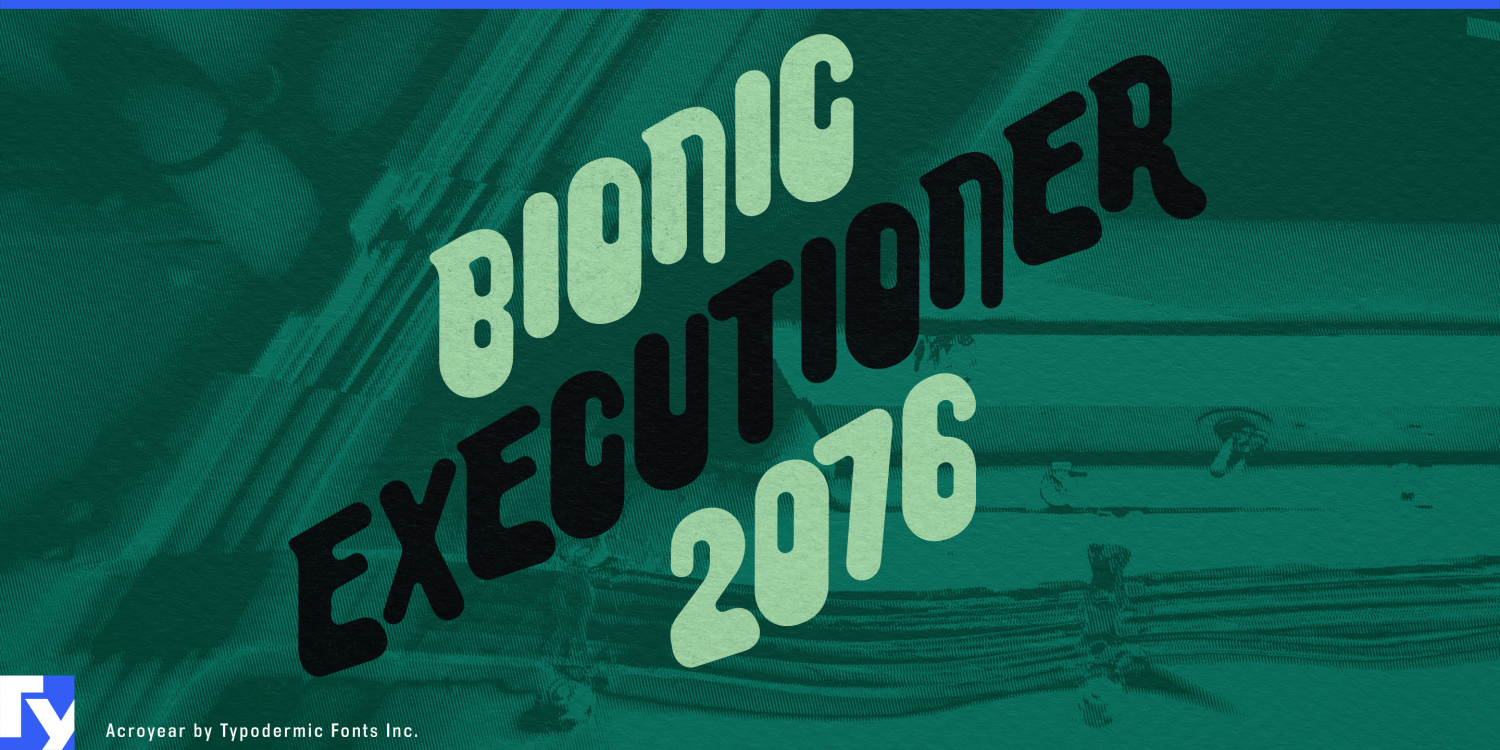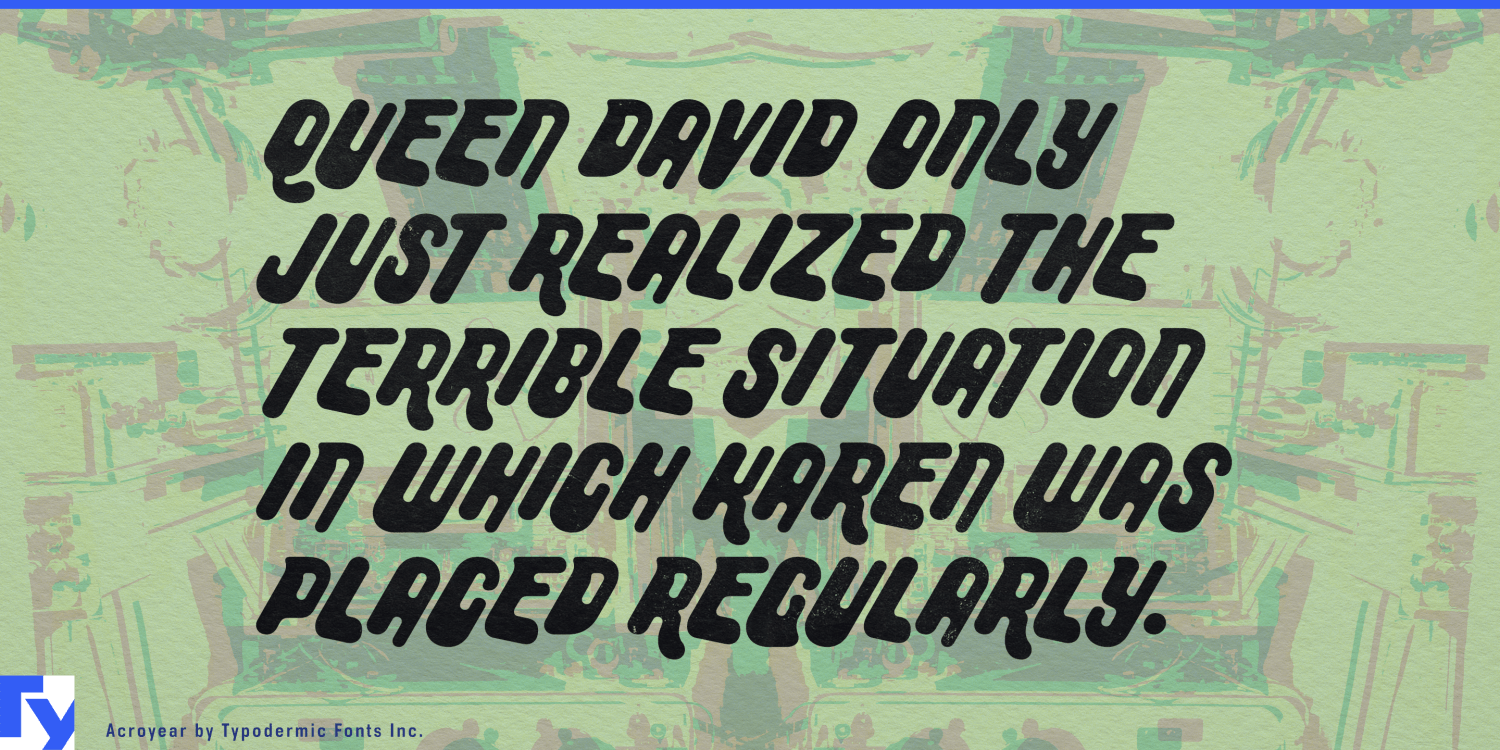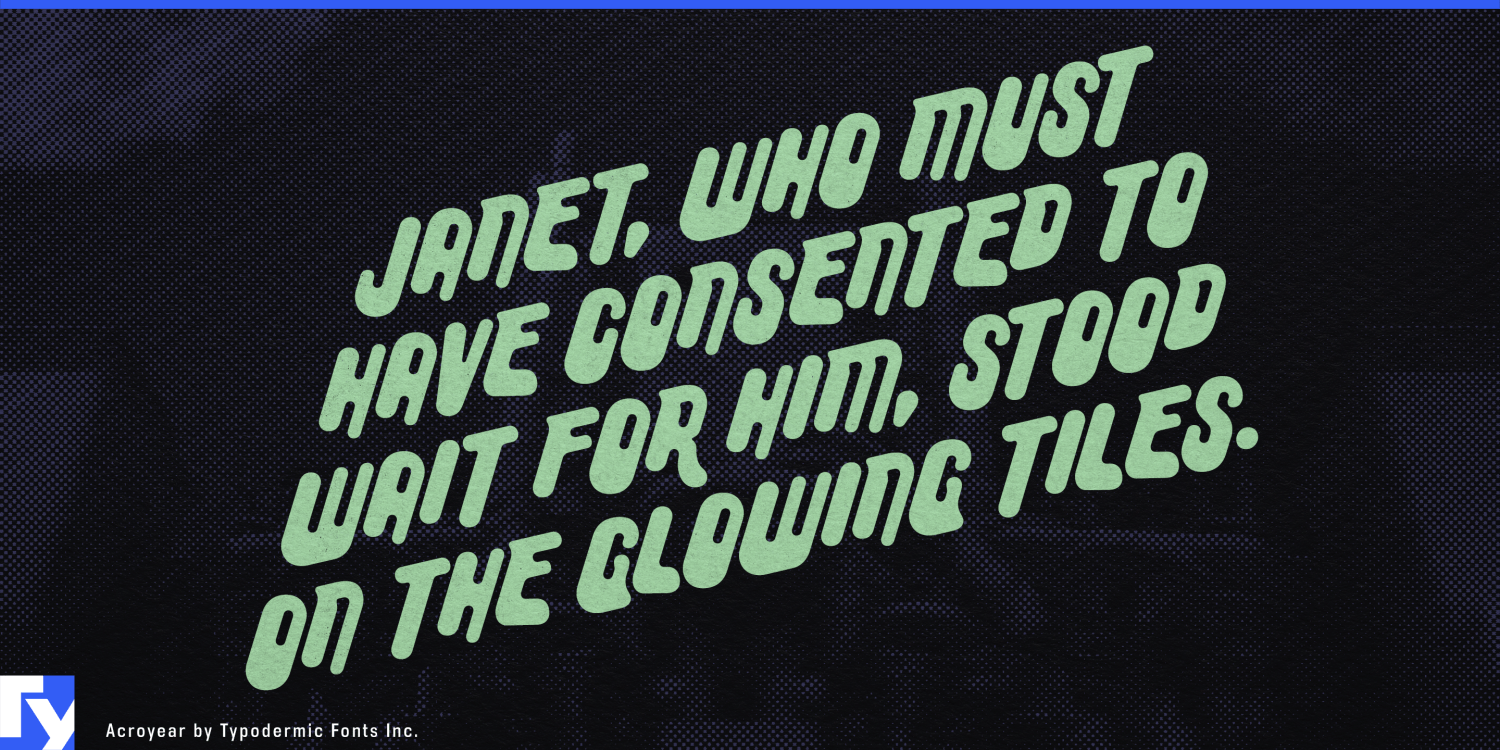
About Acroyear
Elevate your designs with Acroyear, a captivating display typeface that demands attention. This distinctive font family is built on a soft, capsule-like shape that’s both eye-catching and versatile. While Acroyear performs admirably in horizontal…